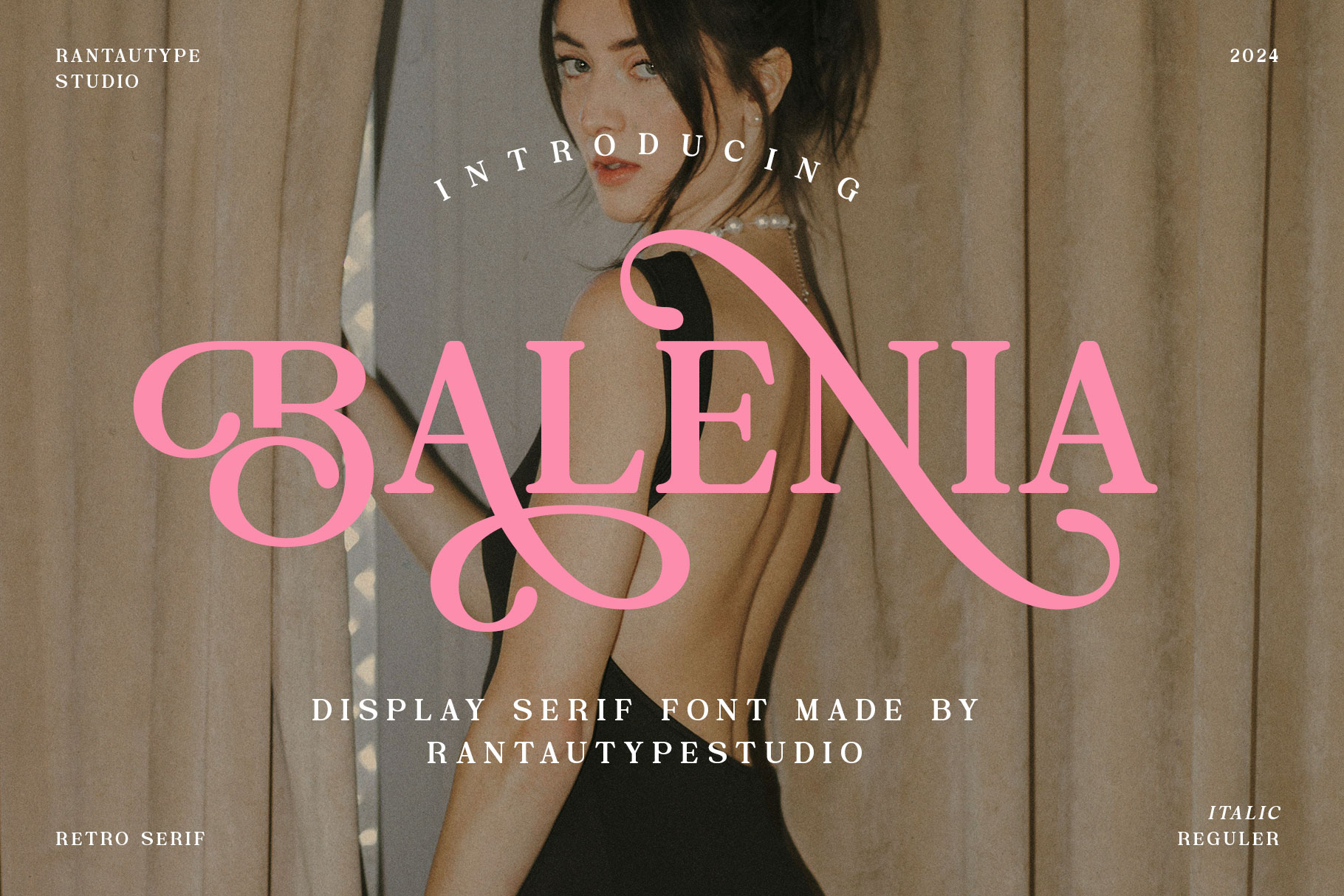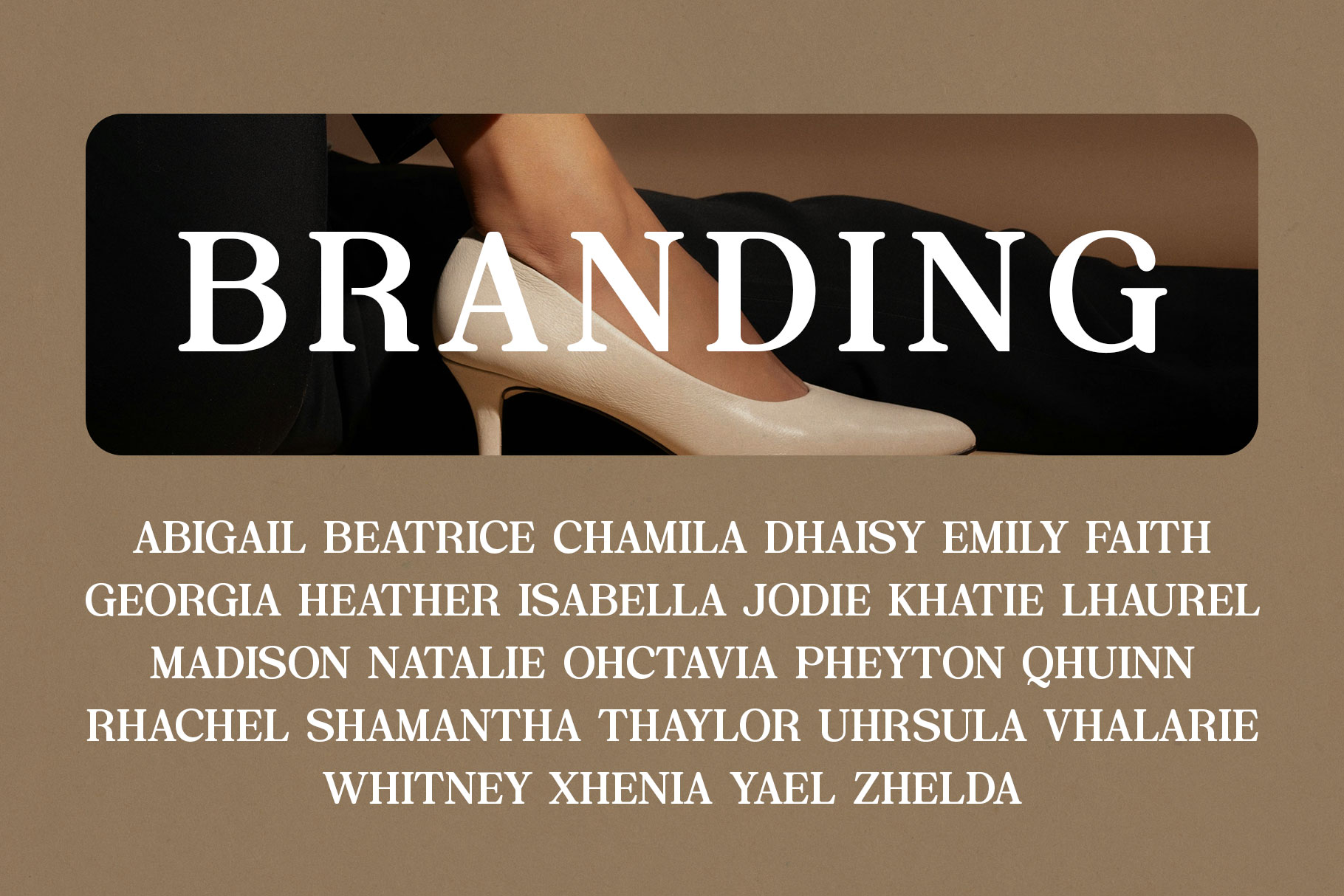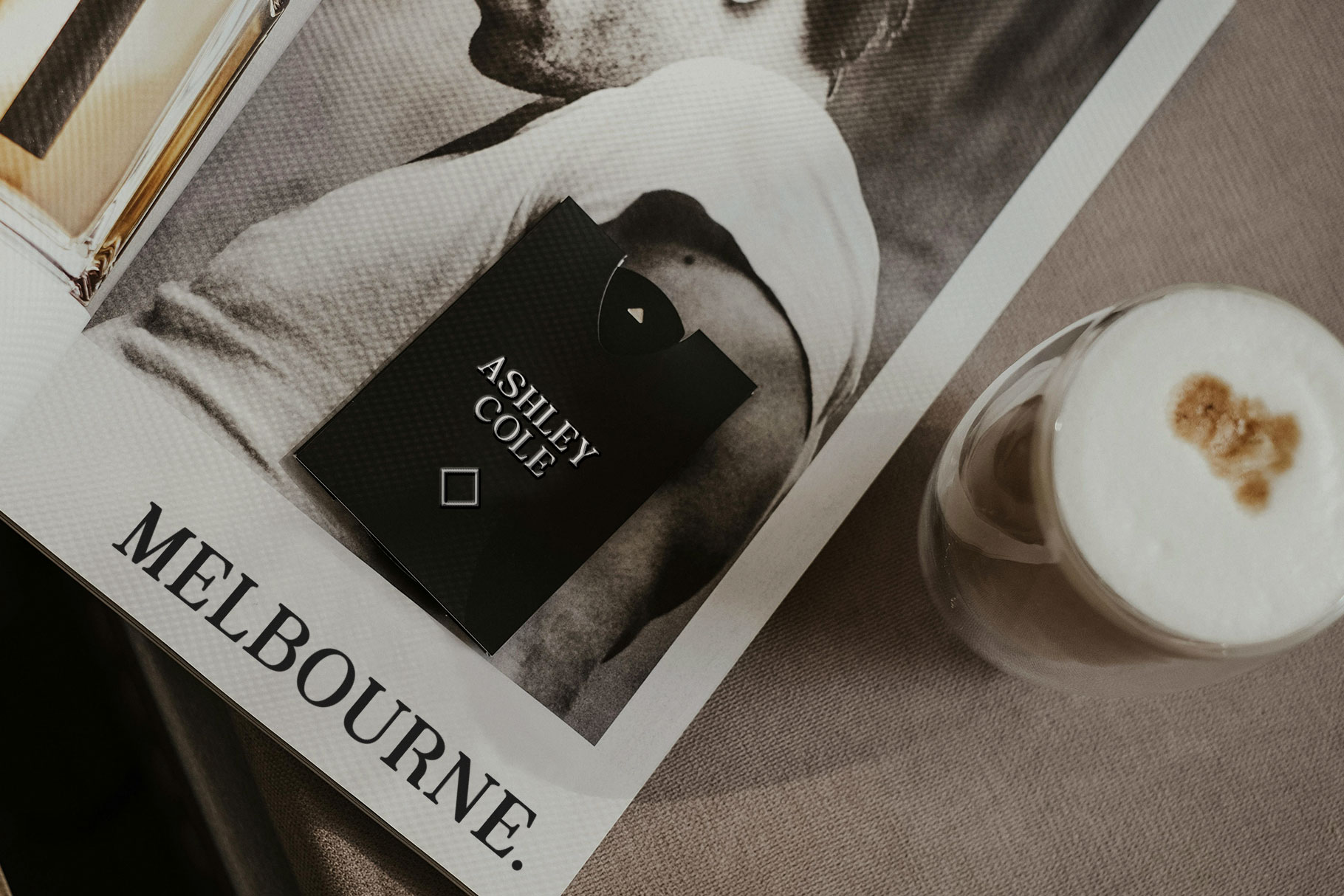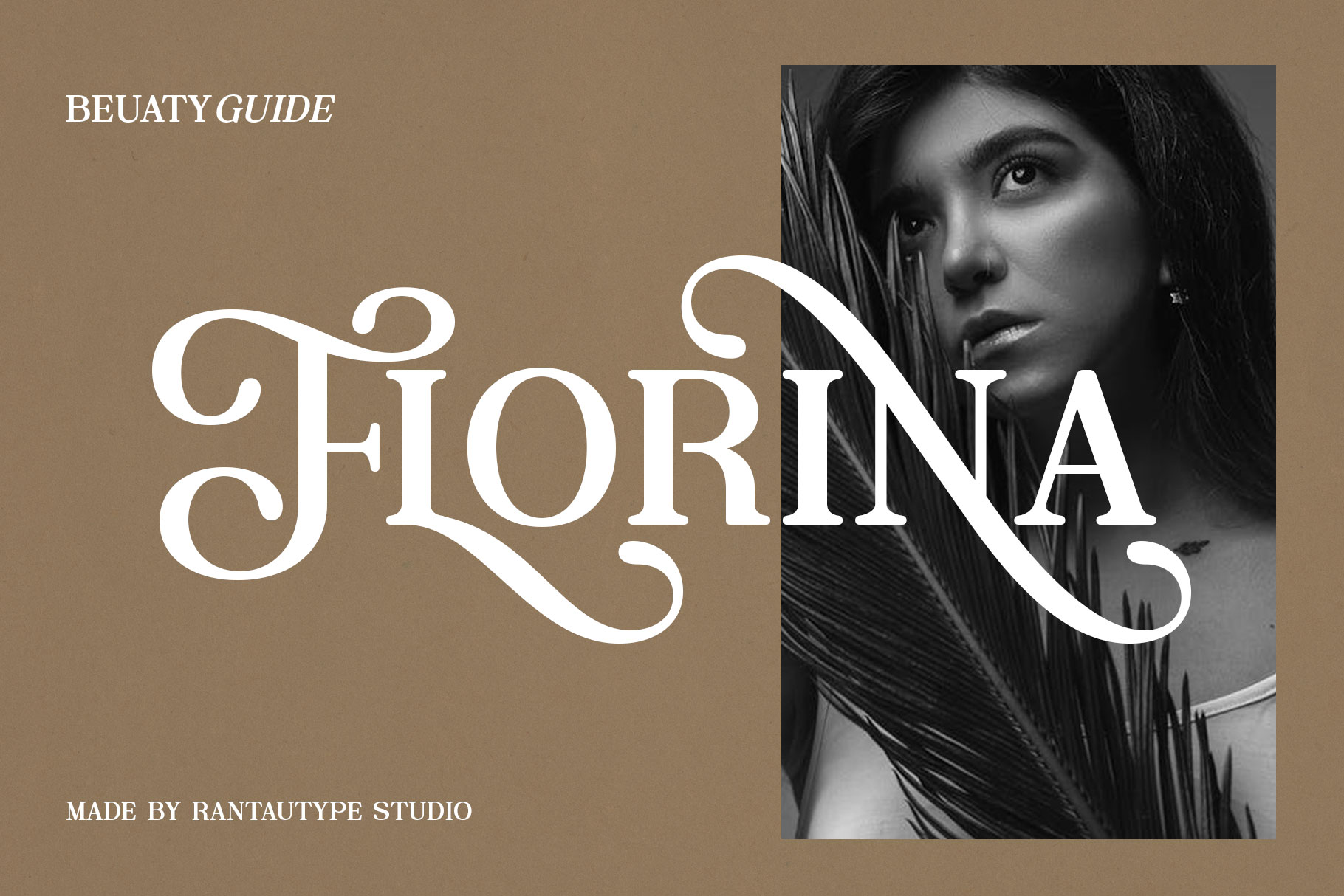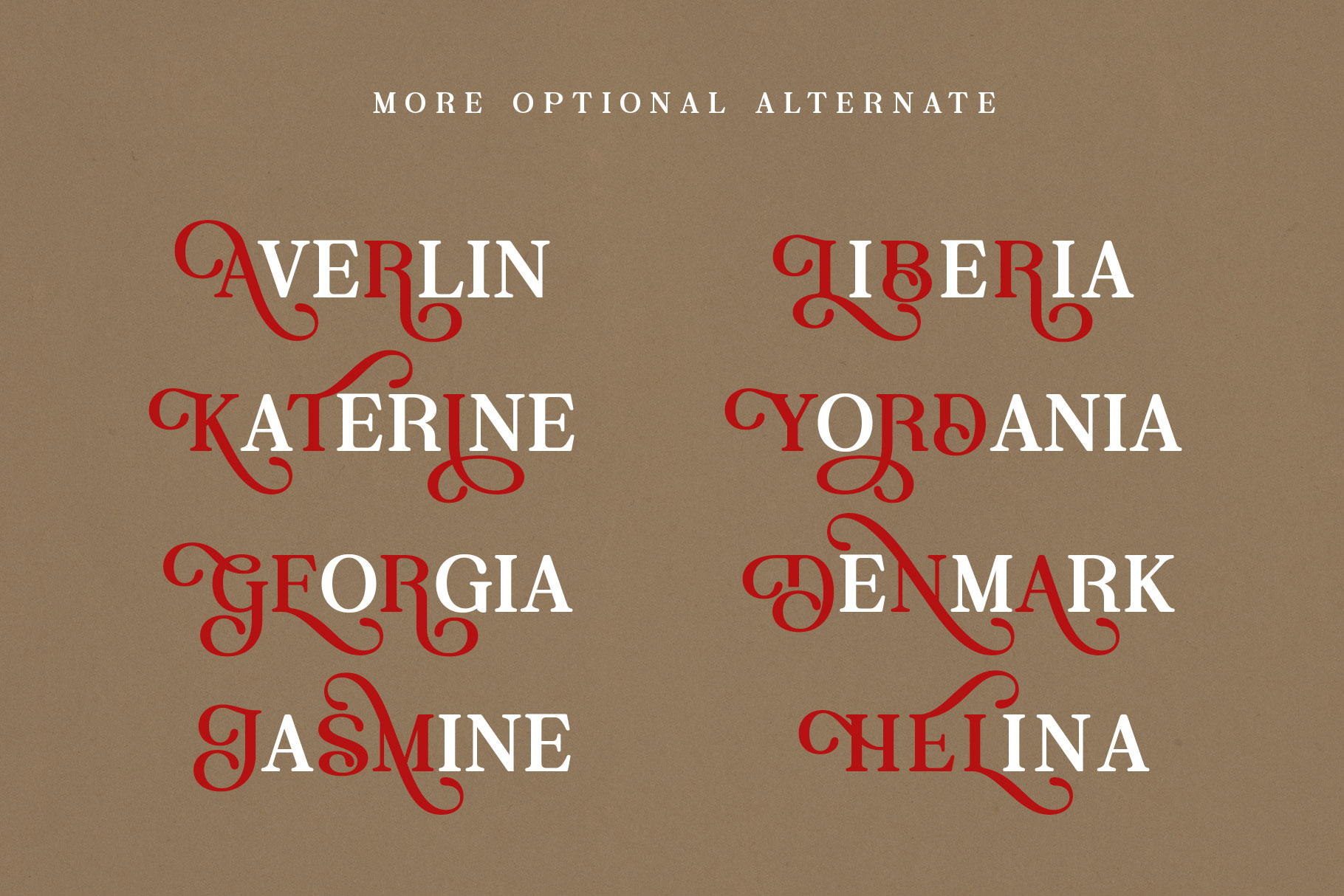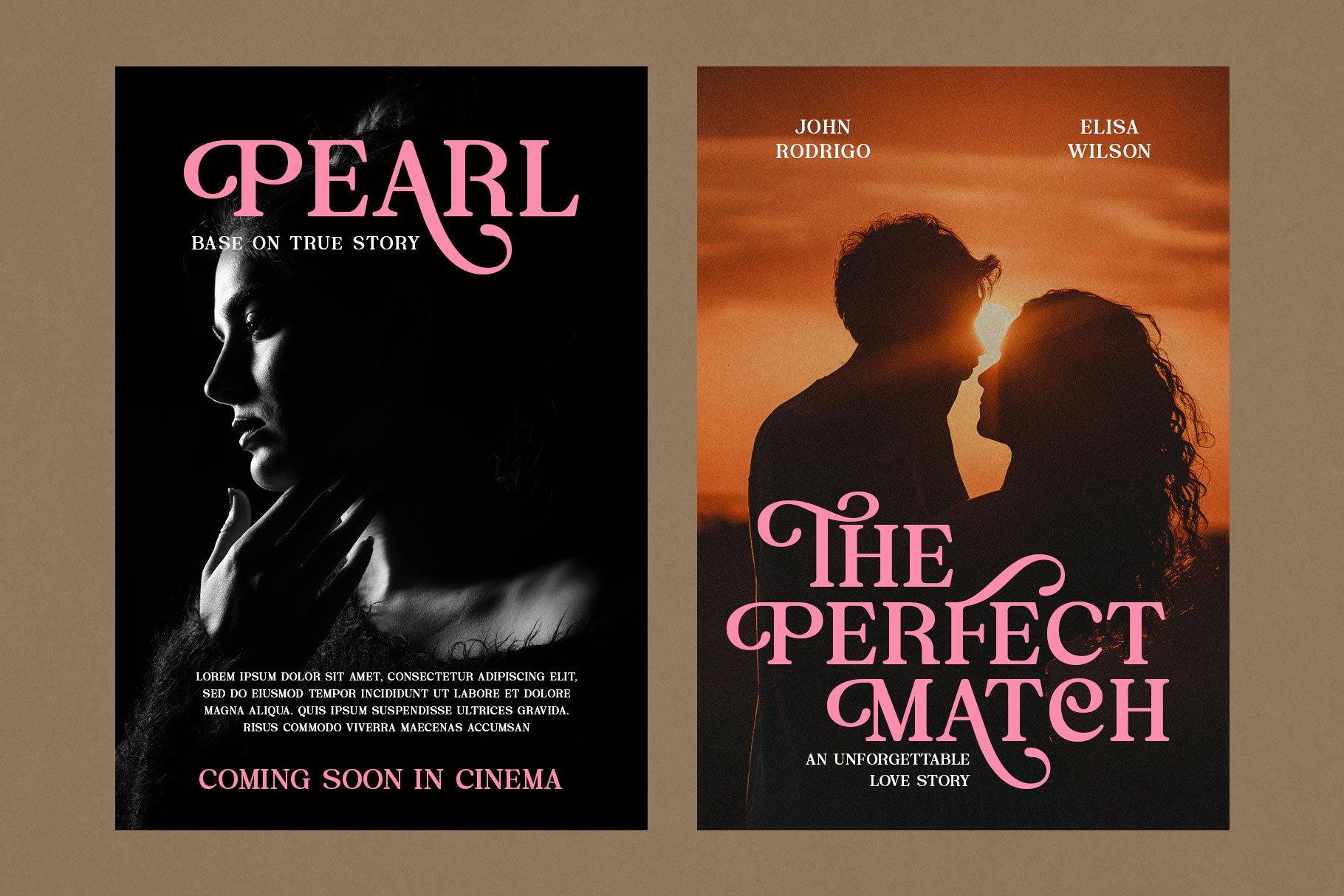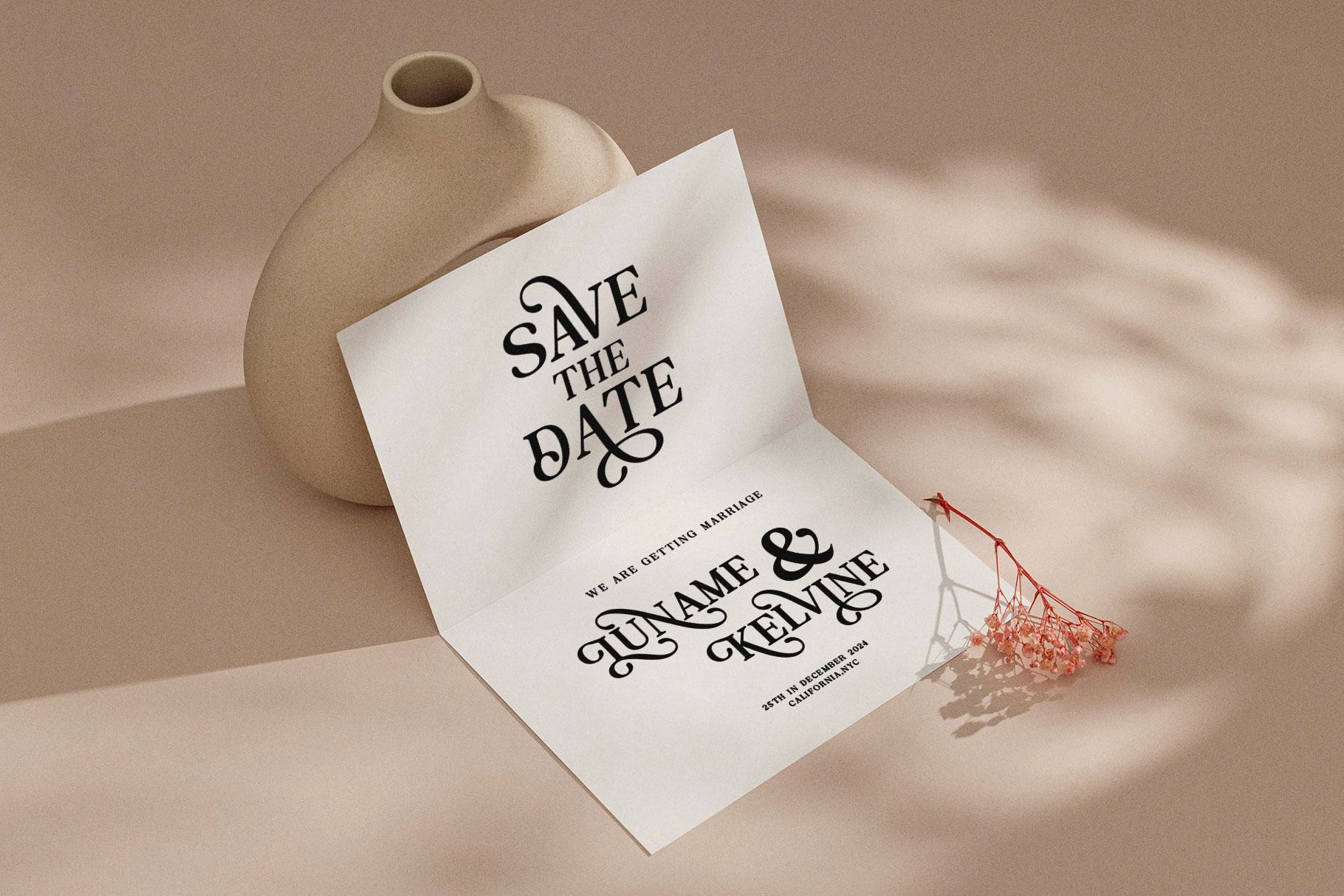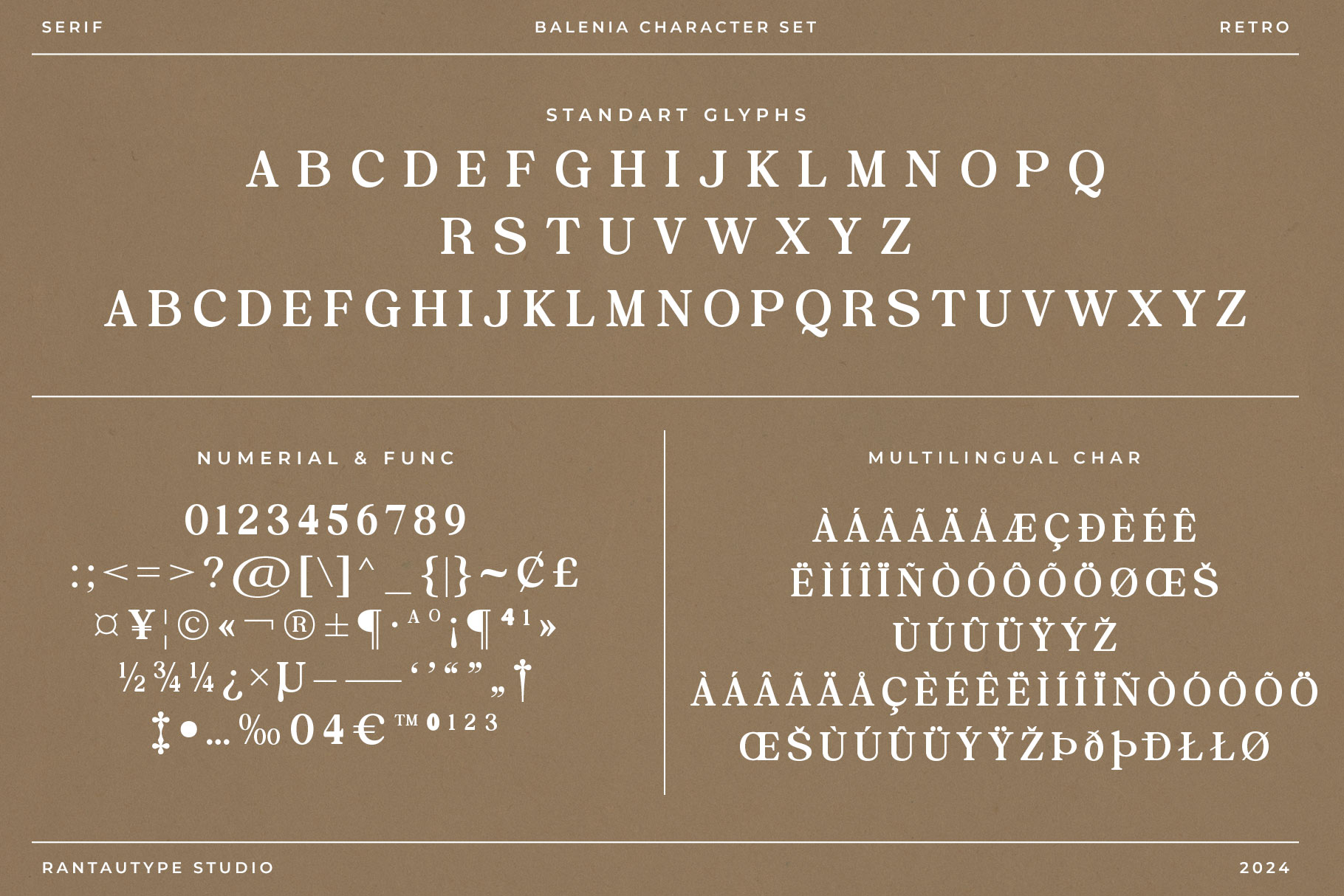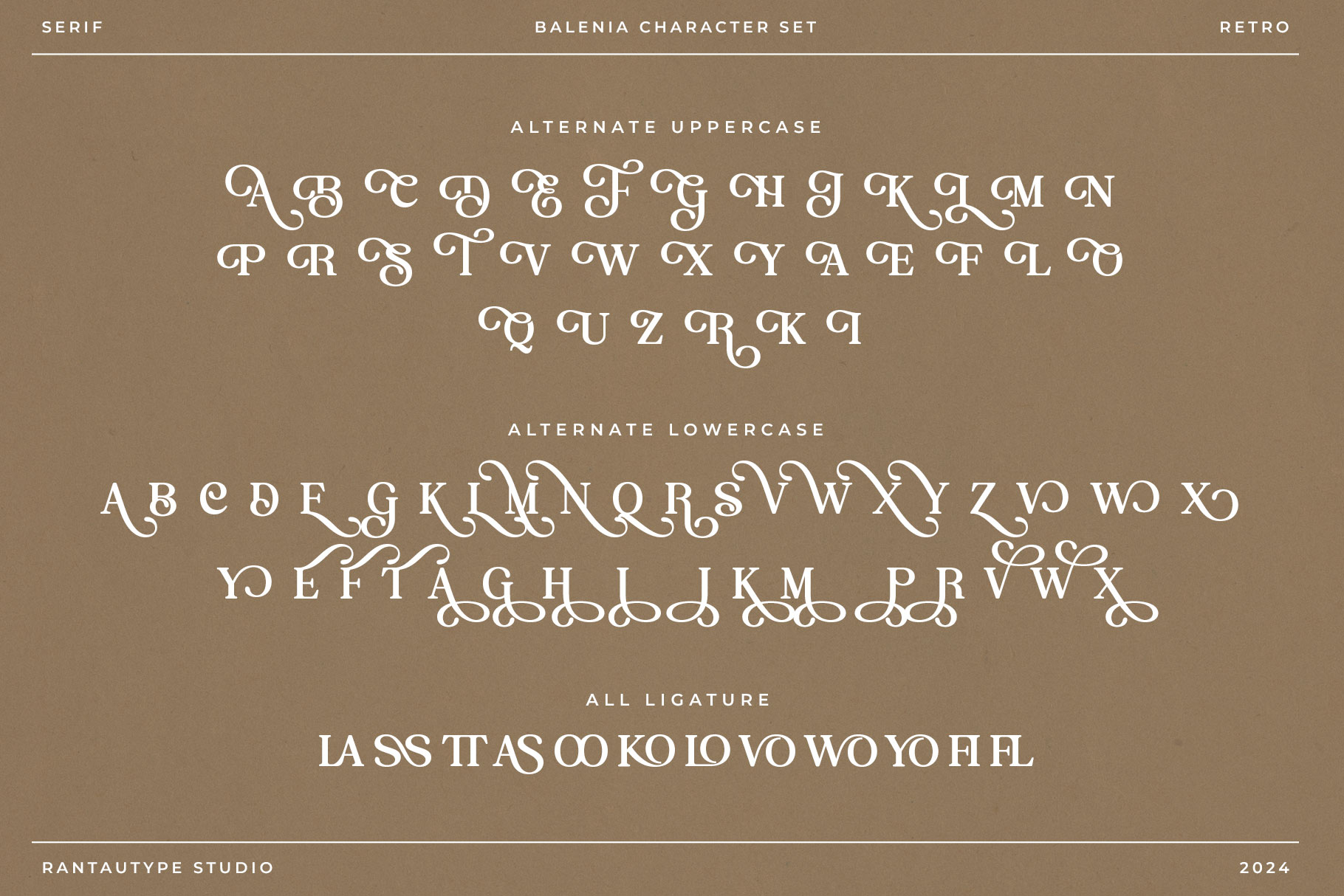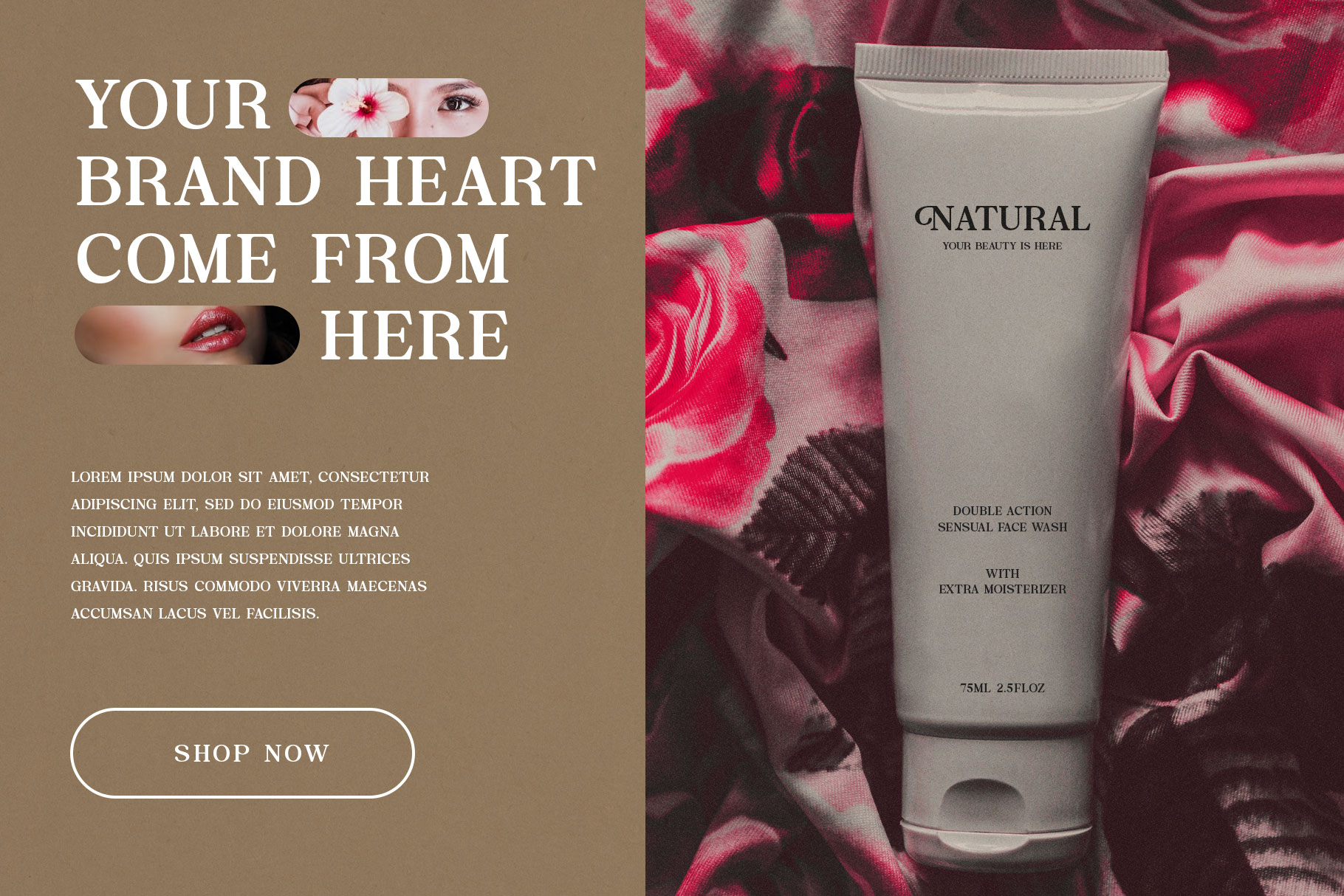
Balenia Retro Display Serif Font
Balenia is display retro serif font with look nostalgic. Balenia bring back memoriable moment in 60s, 70s, 90s to your design project. Balenia is a perfectly choice for any creative endeavor, chic, lifestyle design such as logos, advertisements, stationery, branding project, display and magazine, invitation, corporate brand, product design, label, business project and many other project with retro touch.